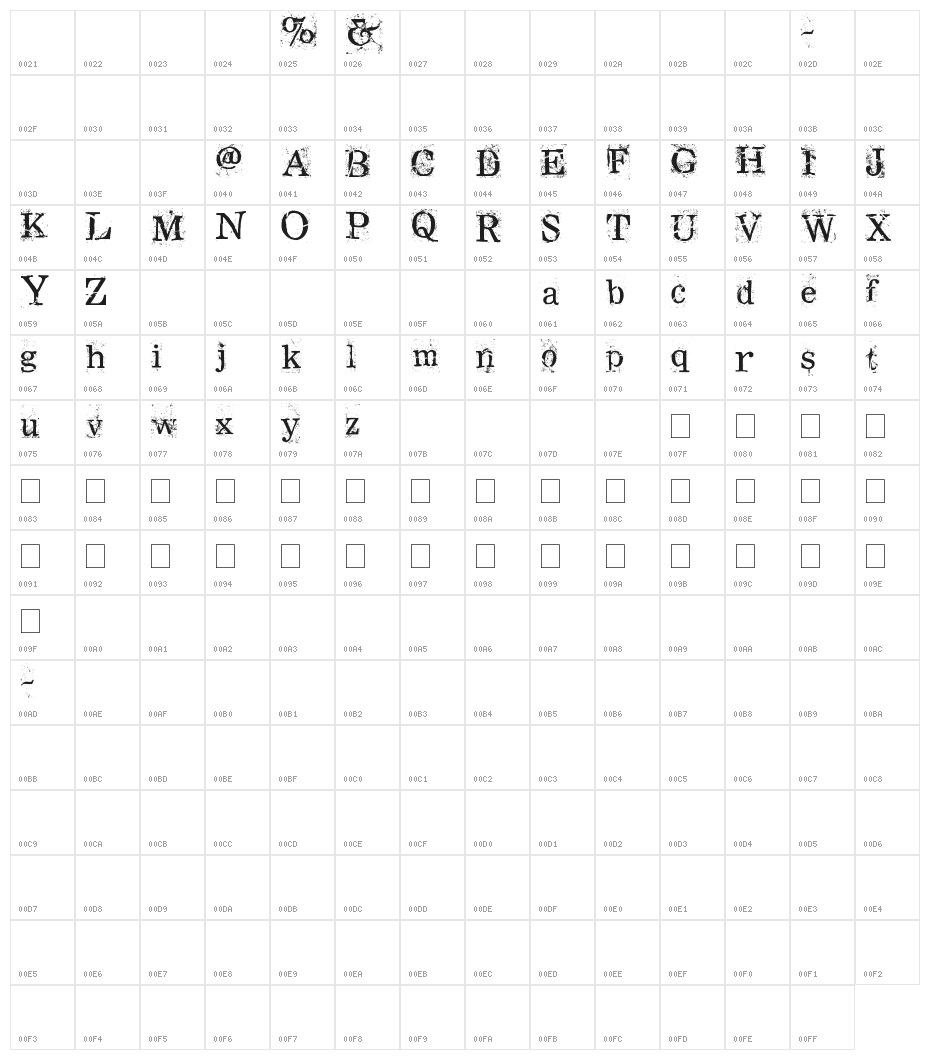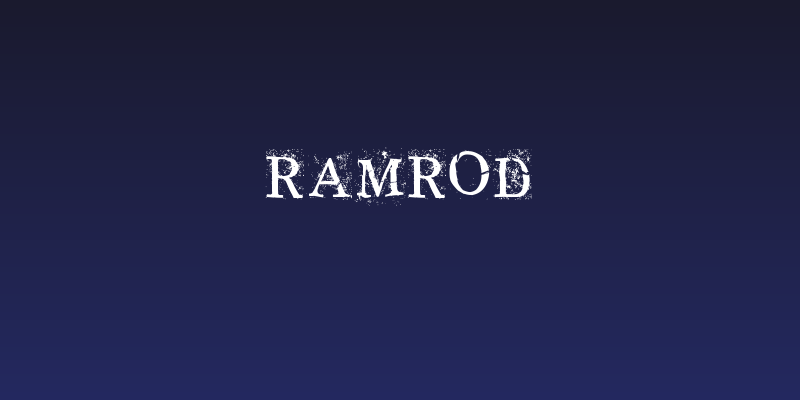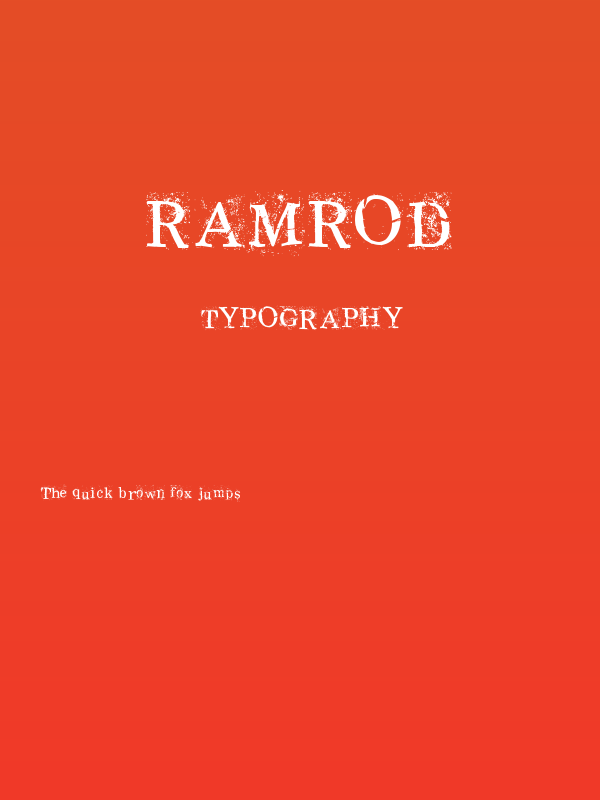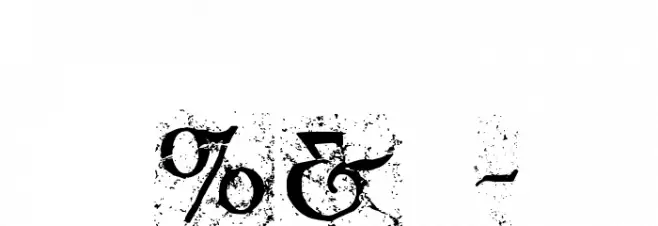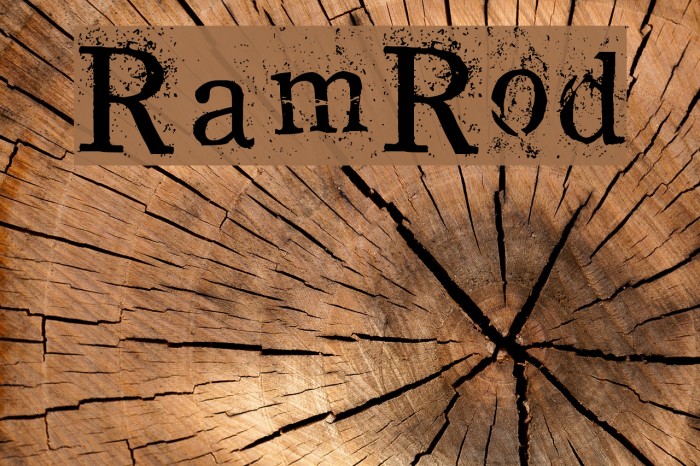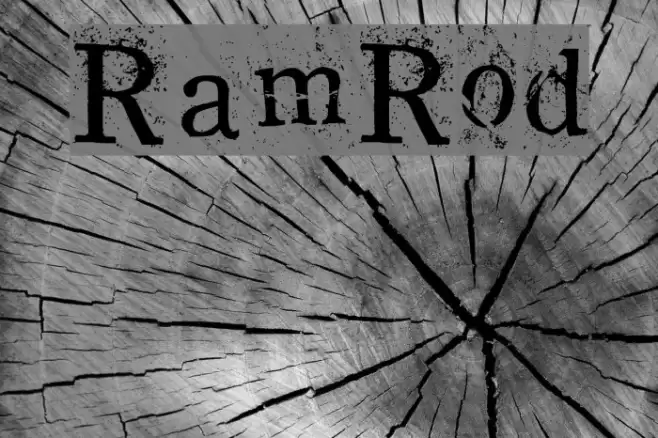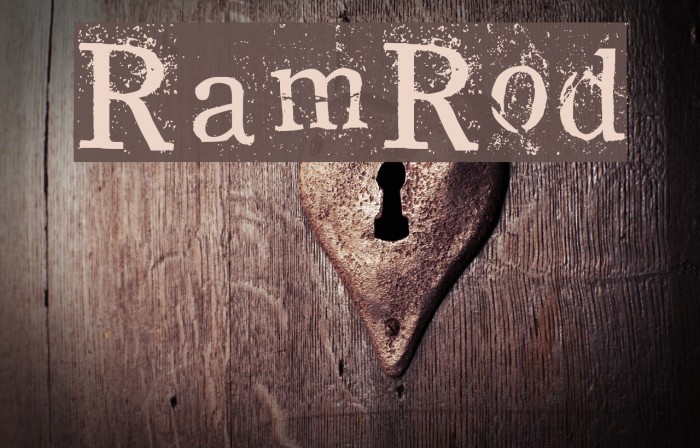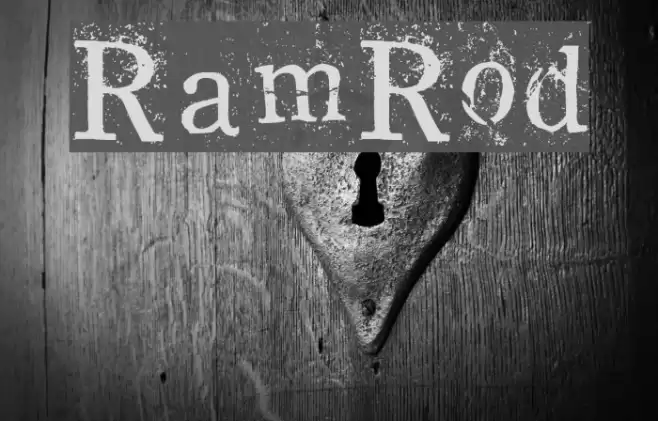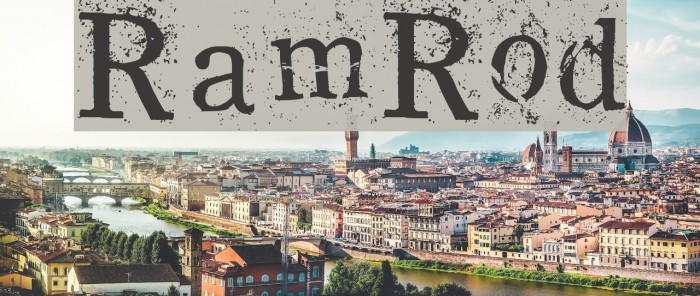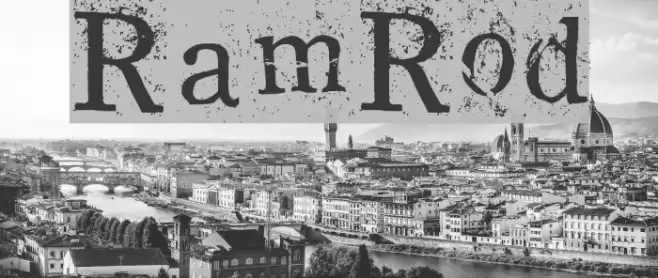
RamRod Font
✎ Distorted Eroded
| श्रेणियाँ | Distorted Eroded |
| समग्र शैली | Vintage |
| उपयोग का मामला | Headlines, Logos, Posters |
| सुझाए गए प्रोजेक्ट | Ideal for posters, album covers, vintage-themed designs, and branding that requires a rustic or edgy look. |